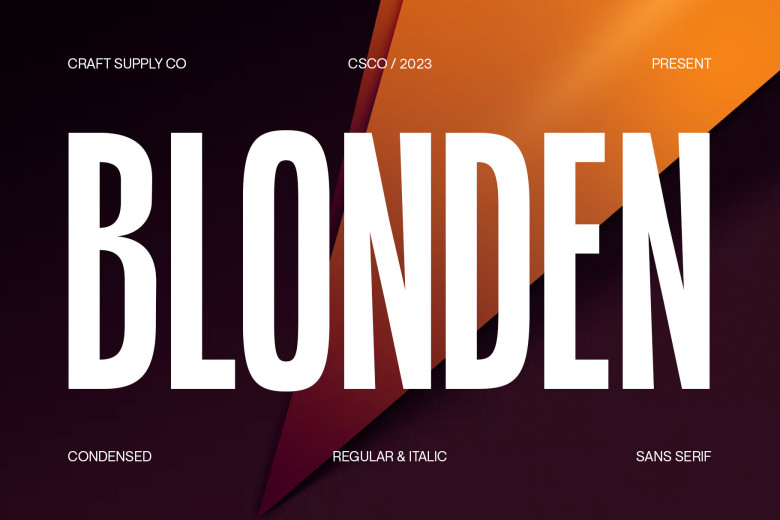
Blonden Font
Blonden offers modernity and efficiency with its condensed sans serif font. Blonden adds dynamic charm to any design by combining style with compactness; making a bold statement in small spaces without taking up too much room!
Blonden Sans Serif Font